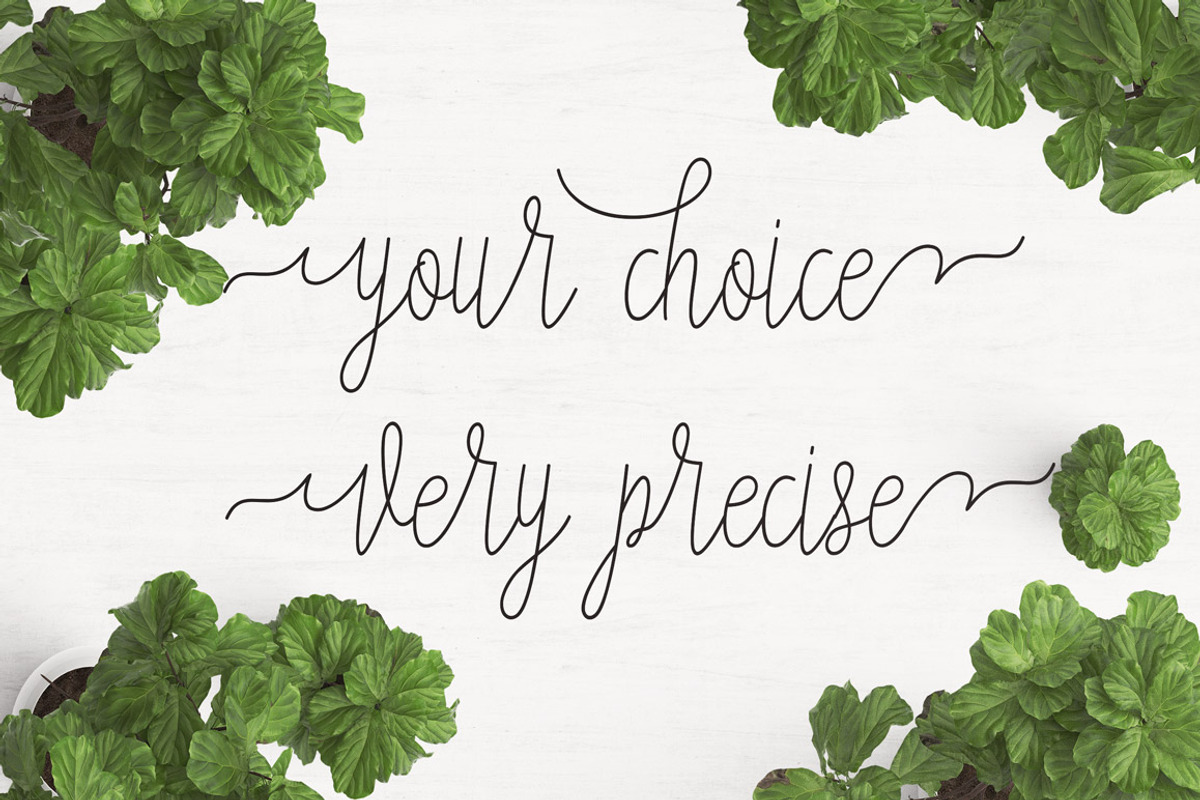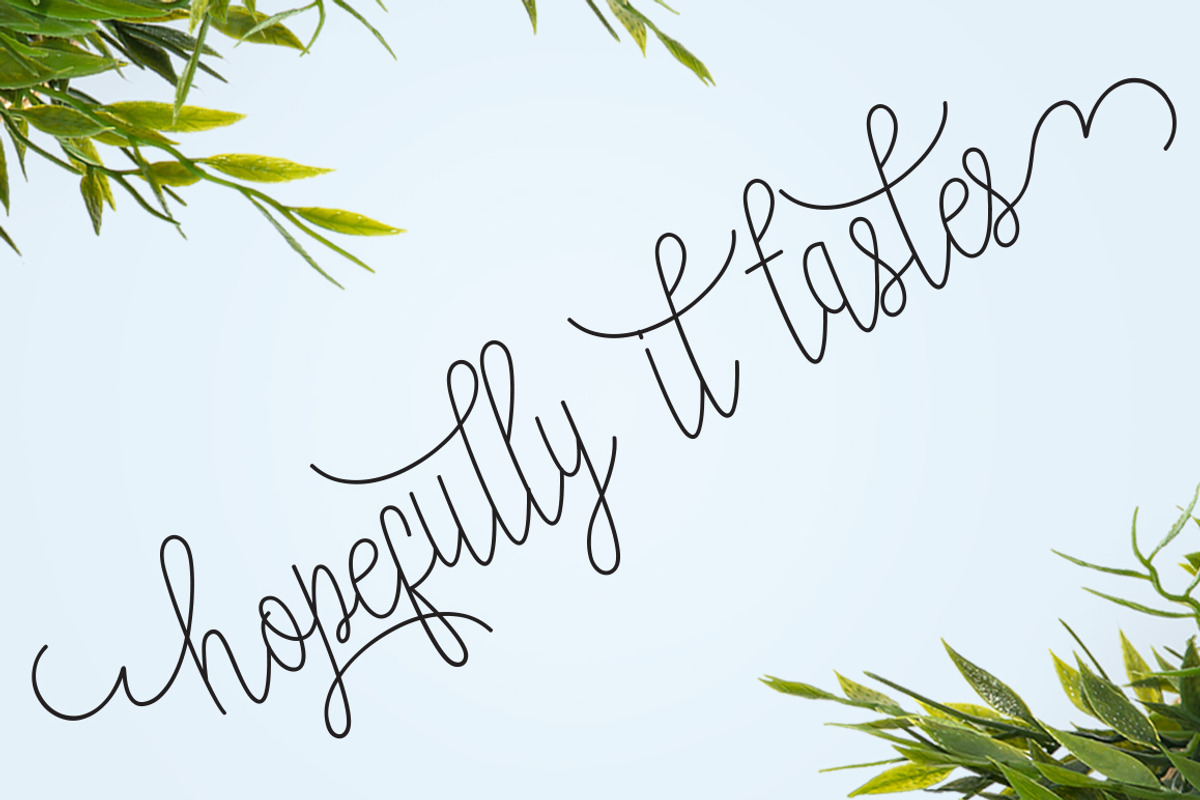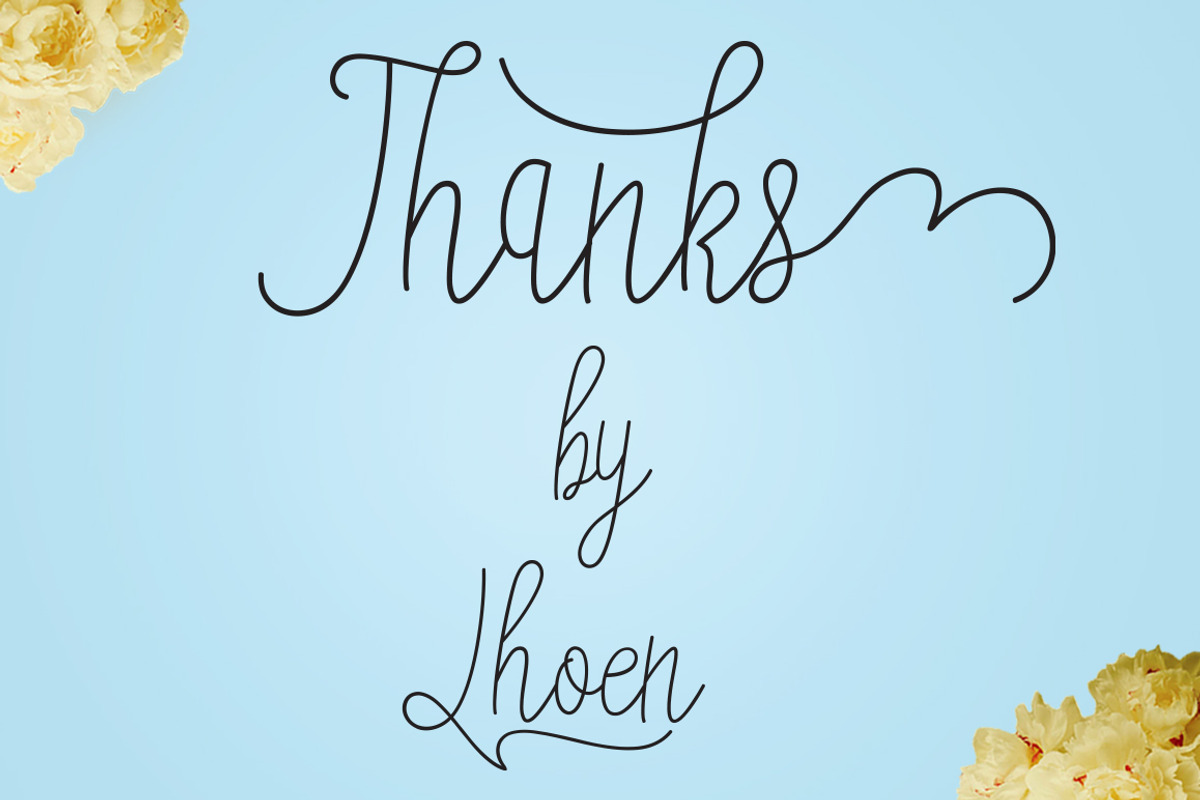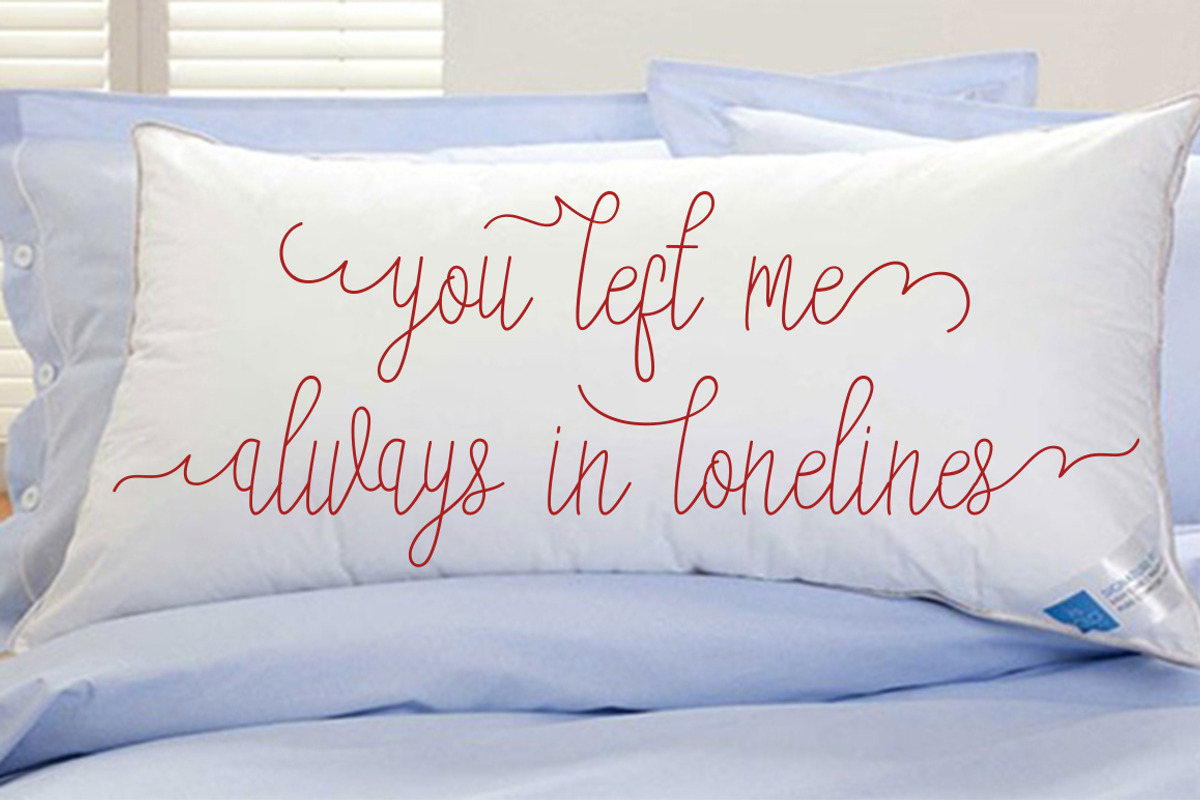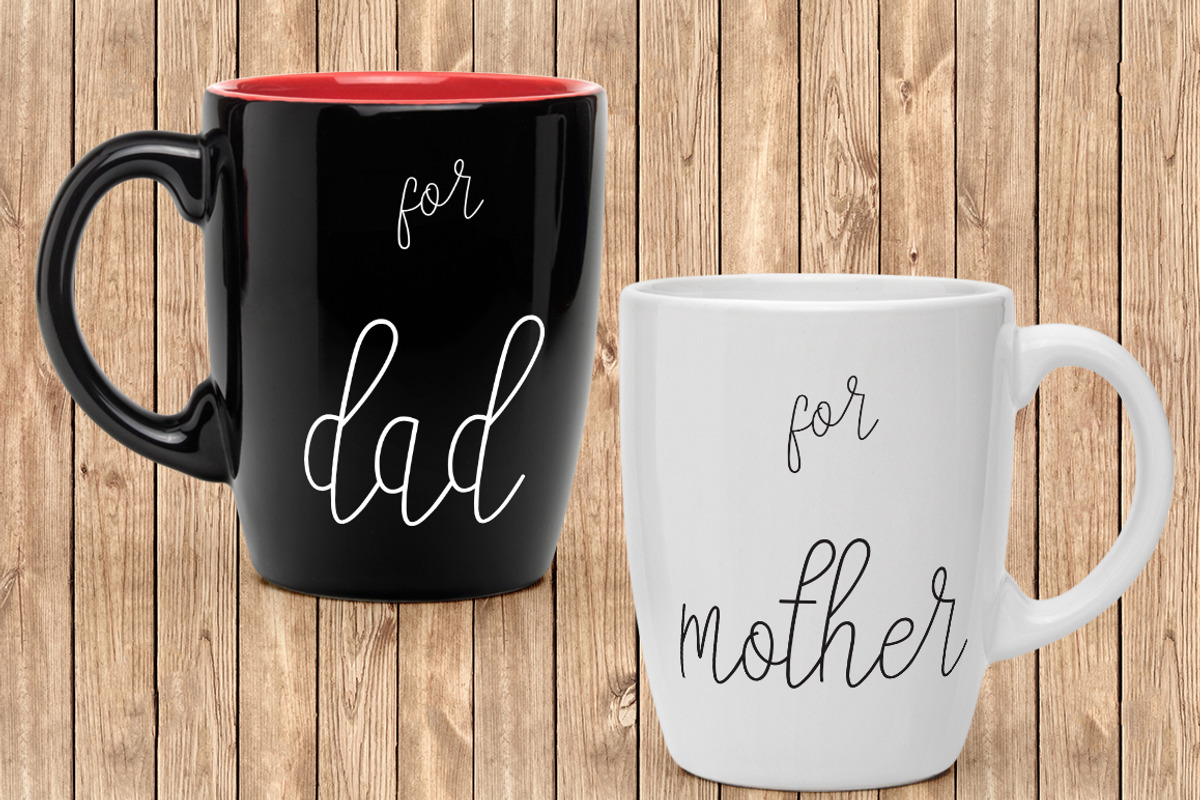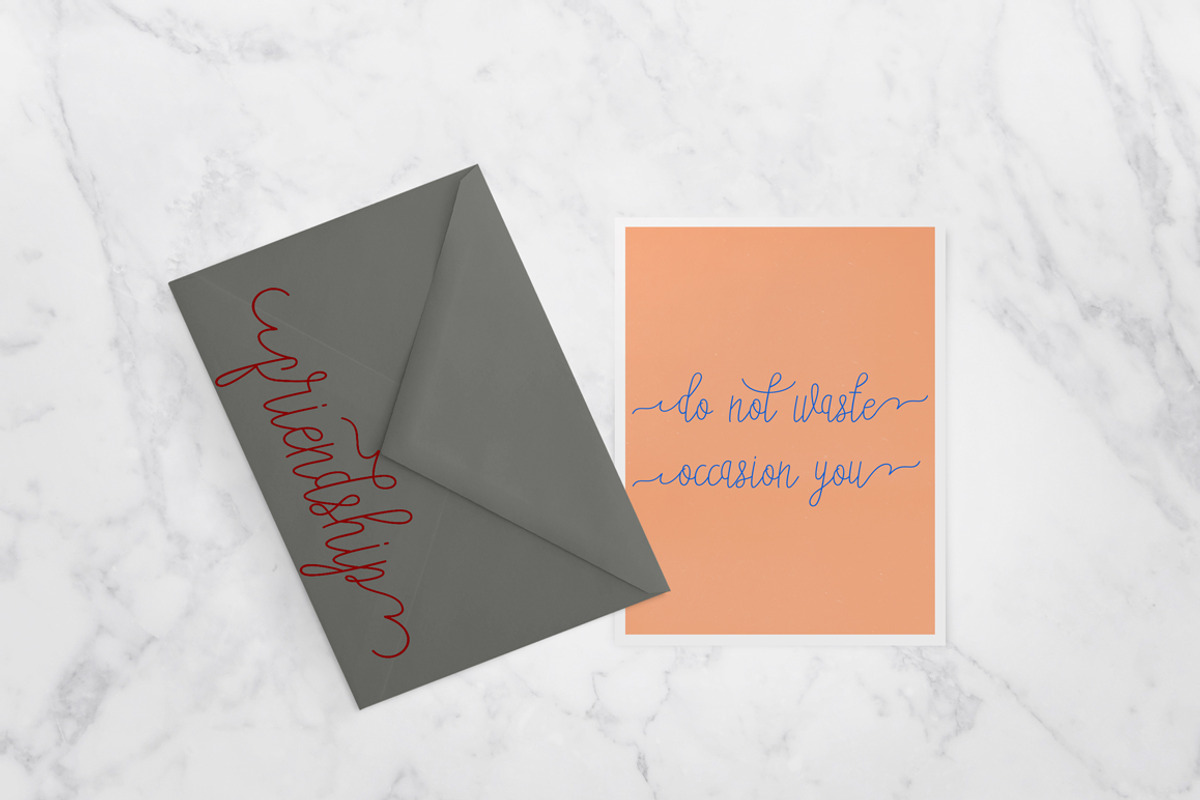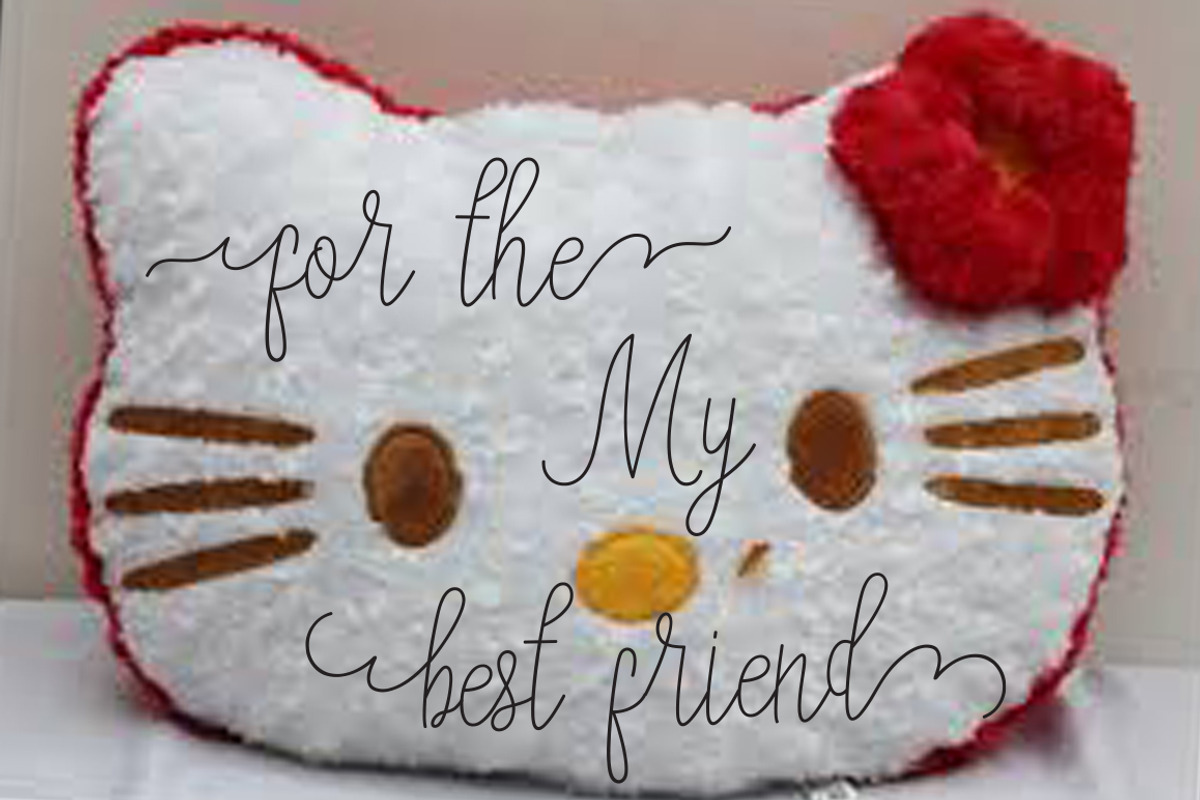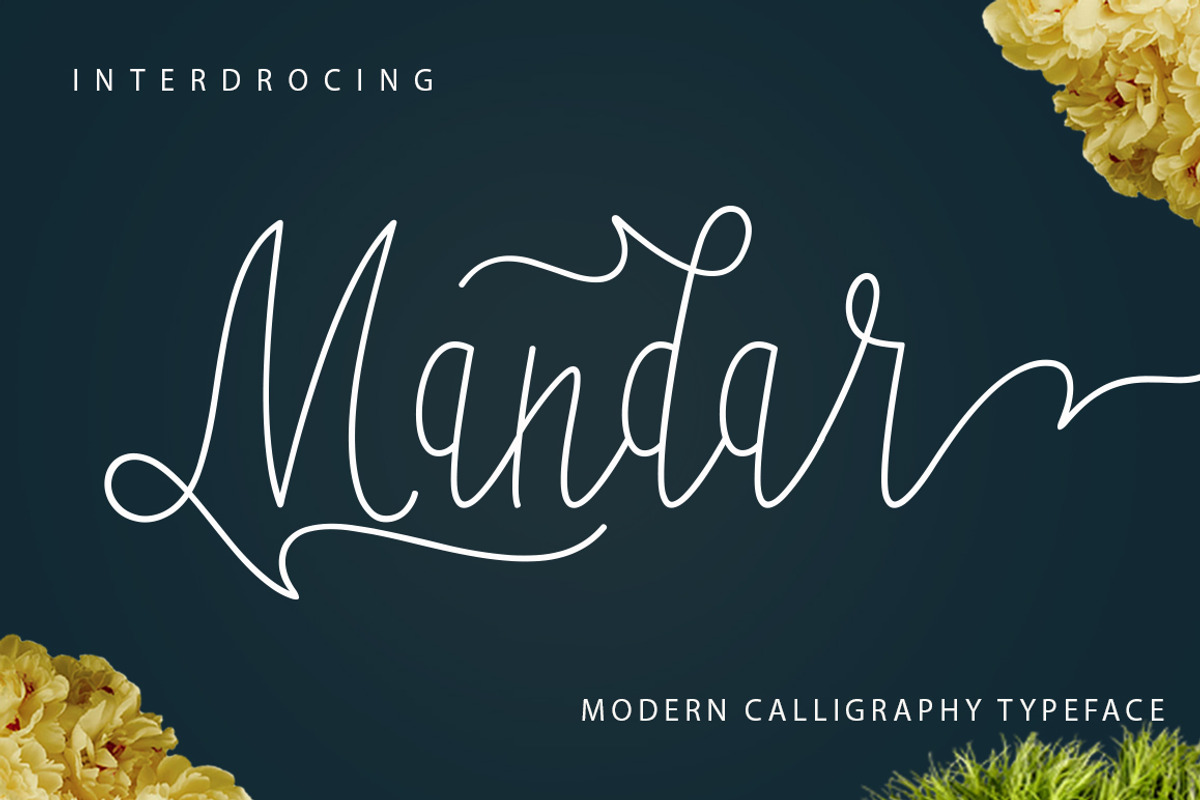
Mandar
Mandar Modern Calligraphy. This font was designed by handwriting, and it has a modern and unique forms of calligraphy, the writing style is very natural. Mandar has a very unique style of calligraphy, it is very suitable for use in the work of modern design.
Can be used for various purposes.such as headings, logos, wedding invitation, t-shirt, letterhead, lable, news, posters, badges etc. To enable the OpenType Stylistic alternates, you need a program that supports OpenType features such as Adobe Illustrator CS, Adobe Indesign & CorelDraw X6-X7.a font that made the hand by having the character up and down like a dancer. Mandar has a very unique style of calligraphy, it is very suitable for use in the work of modern design.